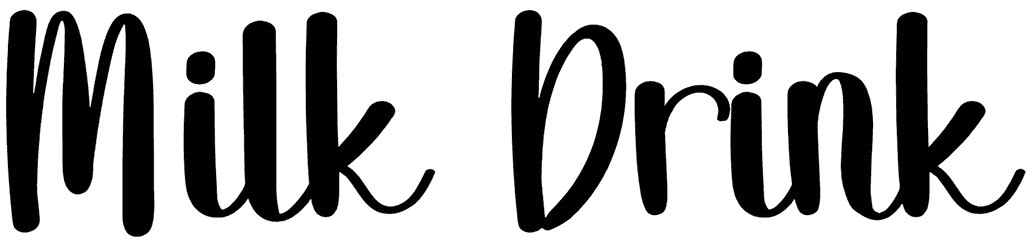
Milk Drink Font
Create your desired design with longhand words and establish a warm relationship with your viewers. This handwritten font shows smooth, casual lettering that can be a great choice for any subject. Milk Drink font with the almost full support of characters will be a nice tool to illustrate words of your upcoming layouts, such as postcards, invitations, branding, and whatnot.